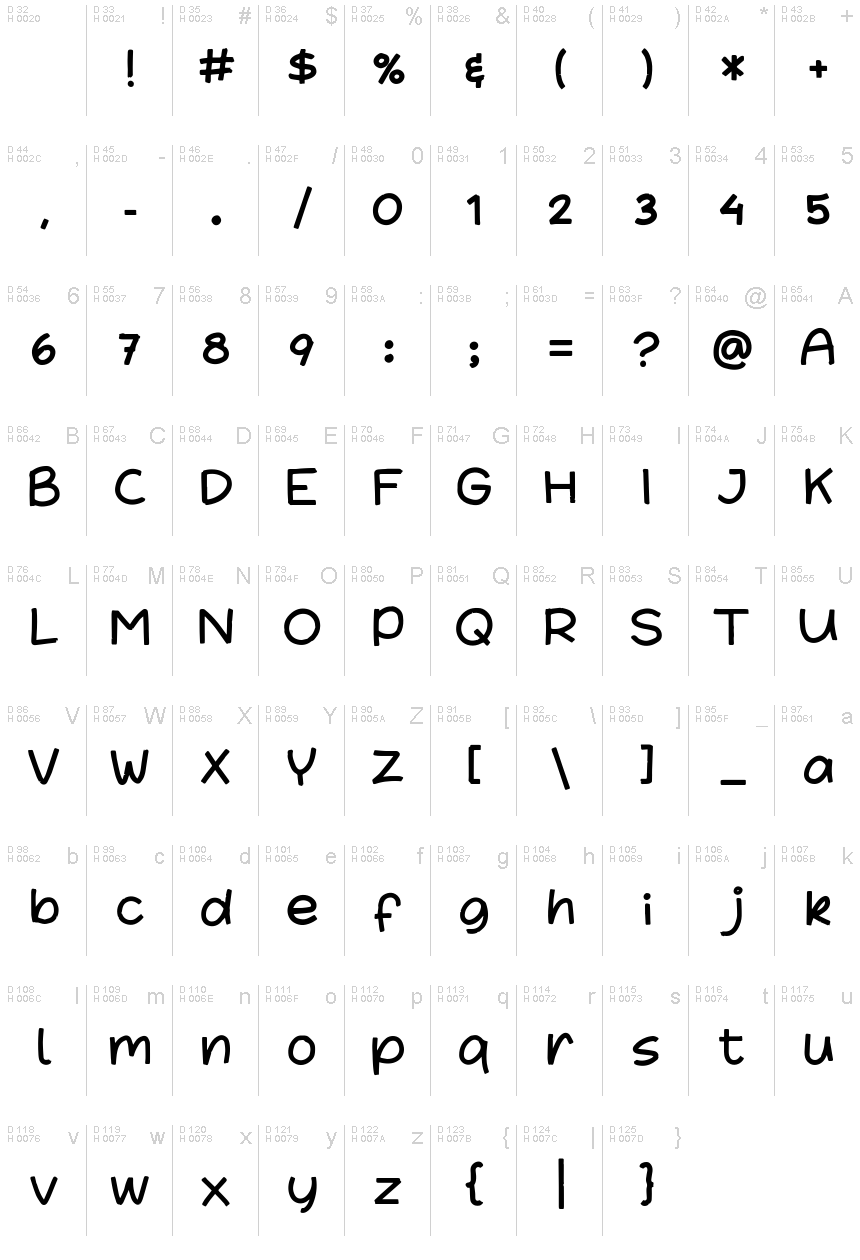
Querina Handwritten
Querina Handwritten, a creation by Excellent Ritma Florendia, exudes the charm of a personal touch with its brush-style strokes that mimic the fluidity and expressiveness of hand-painted letters. Its bold and dynamic curves convey warmth and authenticity, making it an inviting choice for projects that require a hint of intimacy and artistry.
This font finds its place where design seeks to establish a friendly and approachable atmosphere. From bespoke invitations to branding materials for artisanal businesses, Querina Handwritten adds a dash of personalized sophistication that's hard to overlook. Its aesthetic appeal lies in its ability to blend the casual elegance of handwriting with the striking presence of bolder strokes, making it versatile for both digital narratives and print endeavors.
check how flexible this cute font is for many purposes.
from note taking to large display or logo.